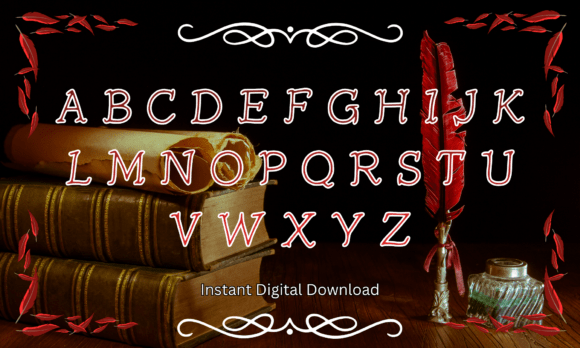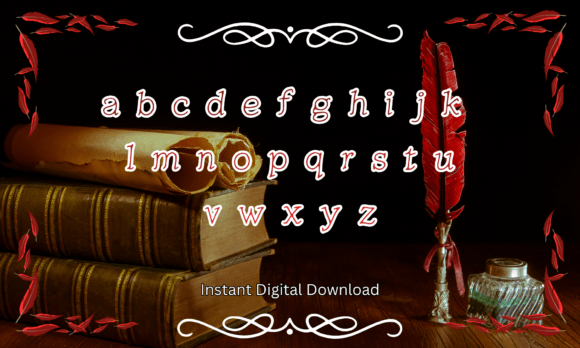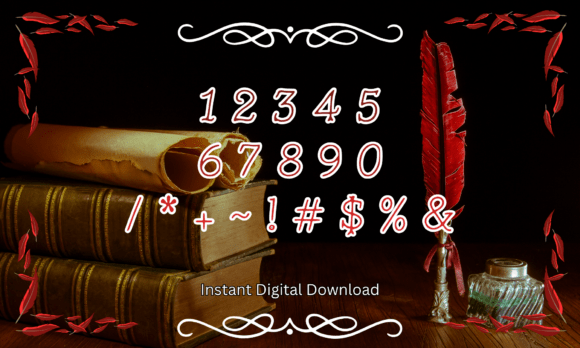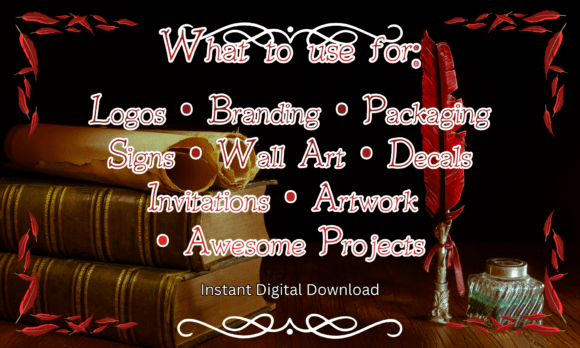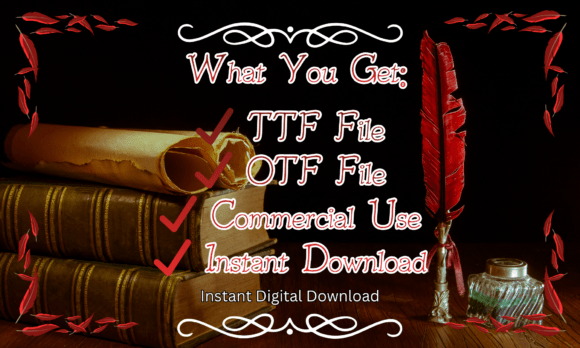
Introduction to Feather Quill Font
Bring timeless elegance to your designs with Feather Quill ๐ชถ๐ Inspired by antique manuscripts, ink-dipped quills, and aged parchment, this font captures the beauty of classic handwriting with a vintage twist.
Perfect for creating designs that feel historical, scholarly, romantic, and refinedโlike something written by candlelight in an old library ๐ Perfect For โข Vintage & Antique Designs โข Dark Academia Aesthetic โข Book Covers & Journals โข Wedding Invitations โข Logos & Branding โข Wall Art & Prints โข Cricut & Craft Projects ๐ฆ What You Get โ TTF File โ OTF File โ Uppercase & Lowercase Letters โ Numbers & Symbols โ Commercial Use Included โ Instant Digital Download ๐จ Font Style ๐ชถ Quill-Inspired Script ๐ Antique / Vintage Feel ๐ฏ Dark Academia Aesthetic โ๏ธ Handwritten Elegance ๐ Old Book Typography ๐ Thank you so much for supporting my shop ๐ Your support truly means everything to me and allows me to continue creating unique and high-quality designs.
Key Features of Feather Quill Font